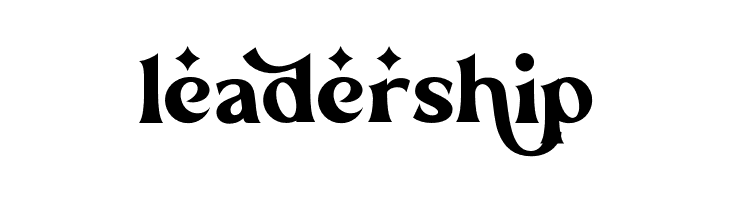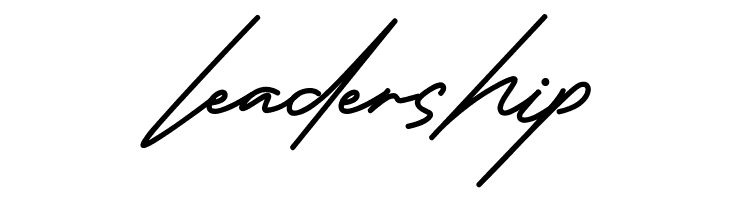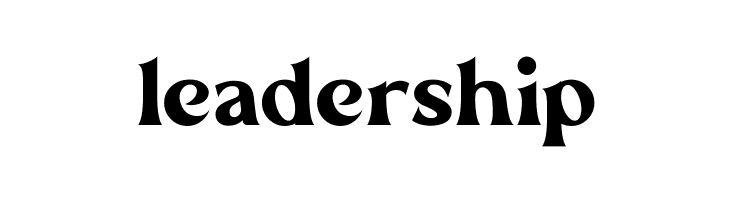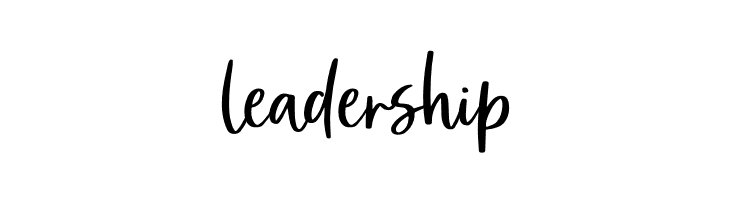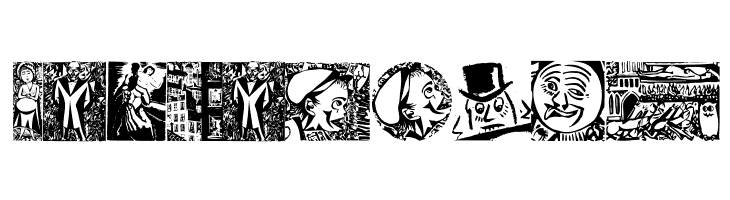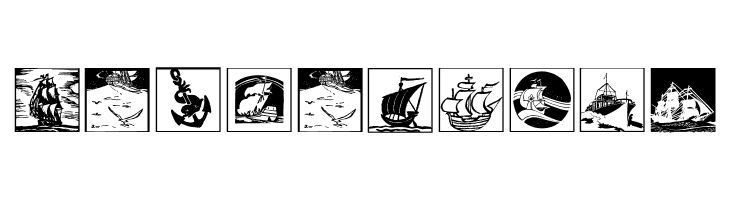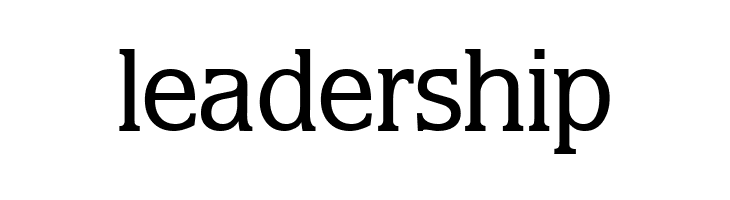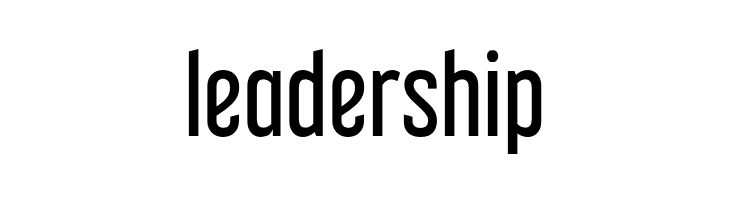
A bold, playful font with rounded, smooth letterforms.
A playful, bold, and rounded font with smooth letterforms.
A playful, bold, and rounded font with a hand-drawn feel.
A bold, rounded font with a playful and approachable style.
A playful, handwritten font with rounded, smooth letterforms.
A playful, handwritten-style font with rounded edges and consistent stroke thickness.
A lively, expressive handwritten font with fluid strokes and playful character.
A display font composed of ship and boat illustrations as characters.
A bold, geometric font with modern, striking characters and unique design elements.
A bold, geometric sans-serif font with a modern and impactful style.
A classic serif font with modern elegance and medium contrast.
Decorative maritime pictogram set with detailed nautical illustrations.
Decorative maritime-themed dingbat set with bold, vintage illustrations.
Hand-drawn maritime illustrations in a decorative dingbat style.
A playful, handwritten font with fluid strokes and a casual aesthetic.
A playful, casual handwritten font with dynamic strokes and a lively feel.
A modern serif font with rounded serifs and smooth curves, offering clarity and style.
A dynamic, cursive font with fluid, interconnected strokes and a personal touch.
An artistic font with gothic influences and dramatic serifs.
A bold, geometric font with a playful and eye-catching design.
A bold, artistic font with distinctive curves and flourishes.
A bold, dynamic serif font with sharp serifs and a slightly condensed form.
A bold, playful font with rounded, bubbly characters and a retro vibe.
A pictorial, illustrative font with each character as a distinct artwork.
A martial arts-themed pictorial display font.
A bold, modern font with thick, rounded characters and unique cutouts.
A modern, geometric font with consistent stroke width and clear characters.
A decorative, illustrative font with intricate, woodcut-style artwork in each character.
A graphic, illustrative font with each character as a detailed scene.
A sophisticated script font with elegant, flowing characters and a calligraphic touch.